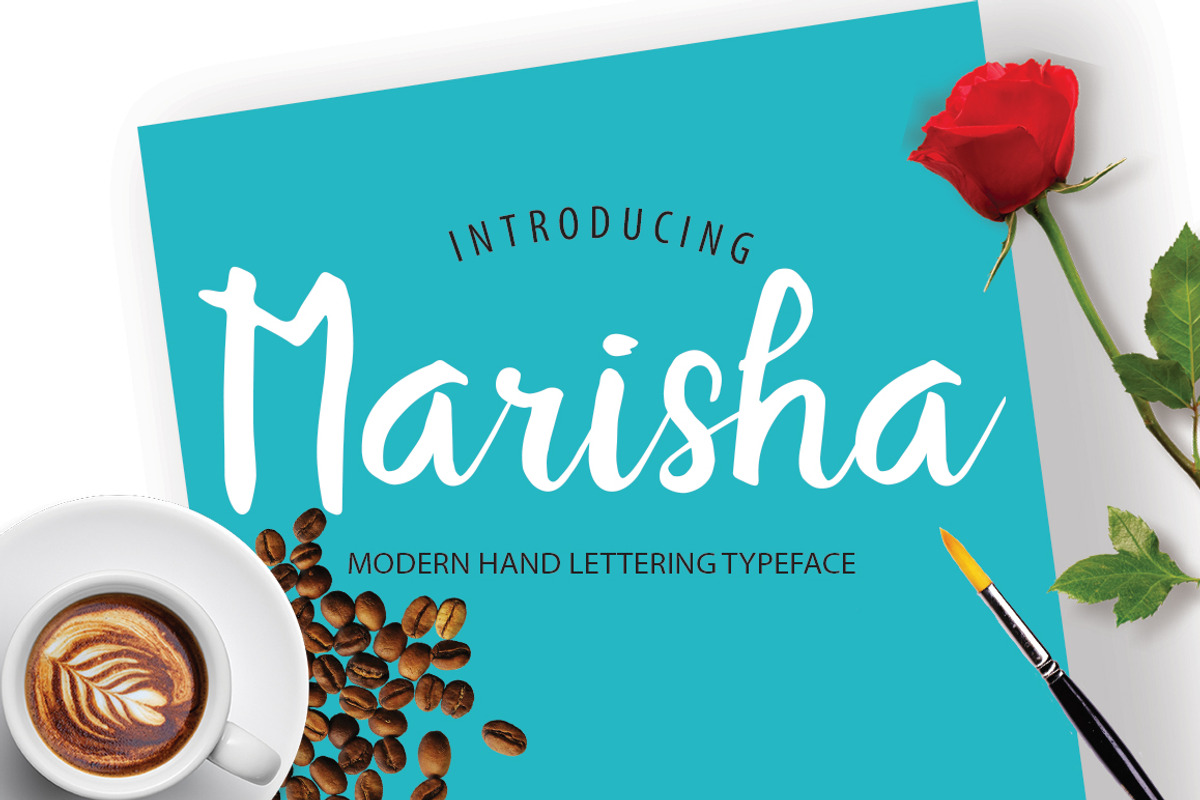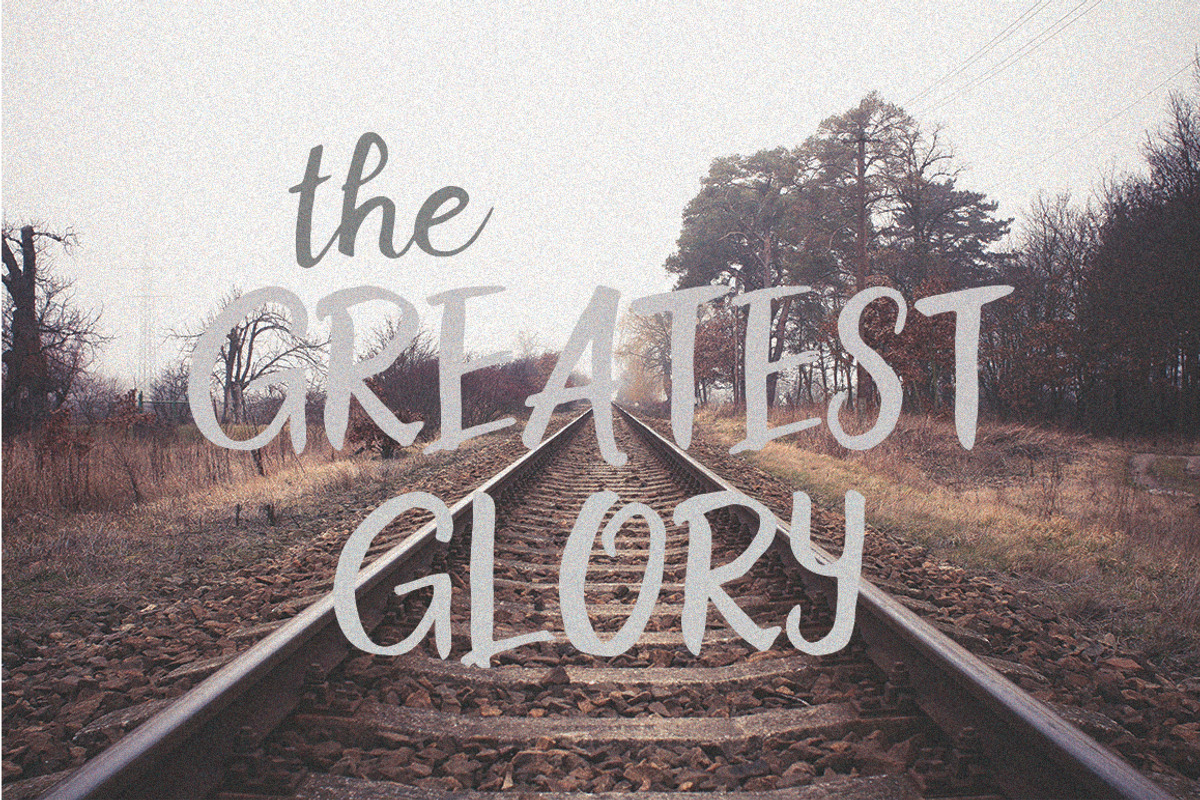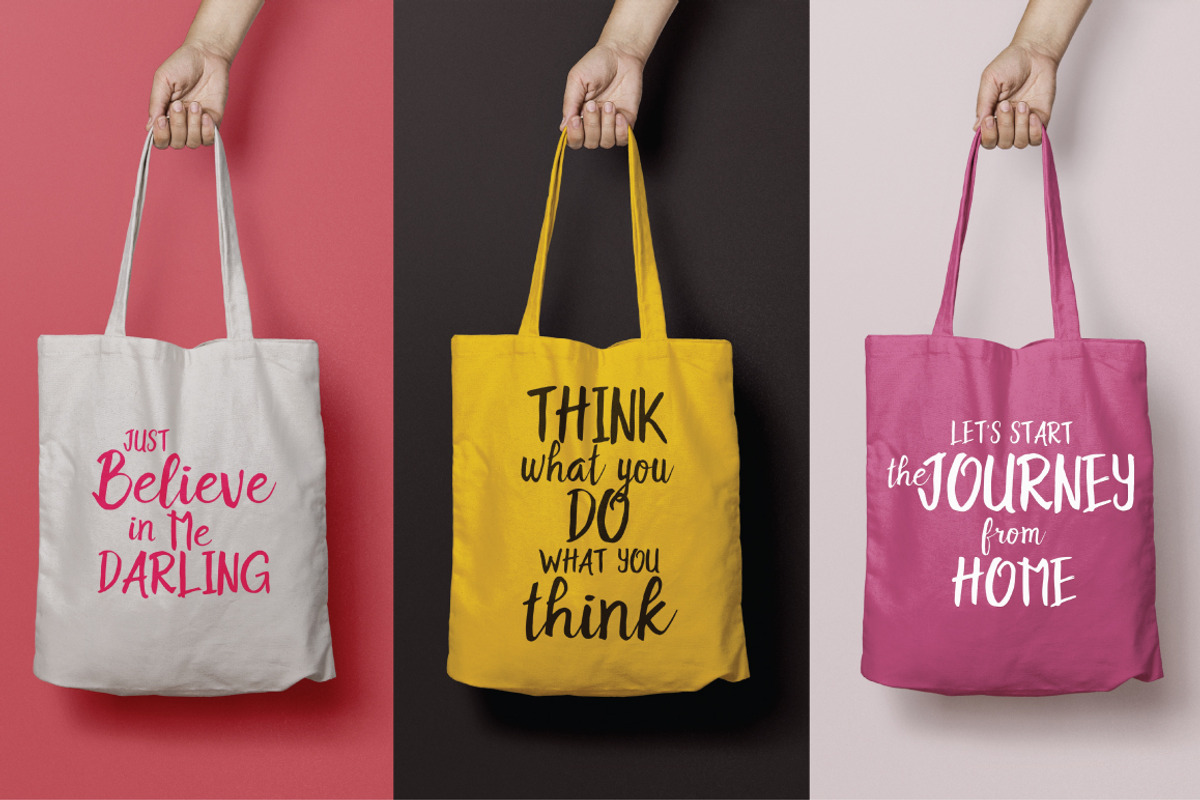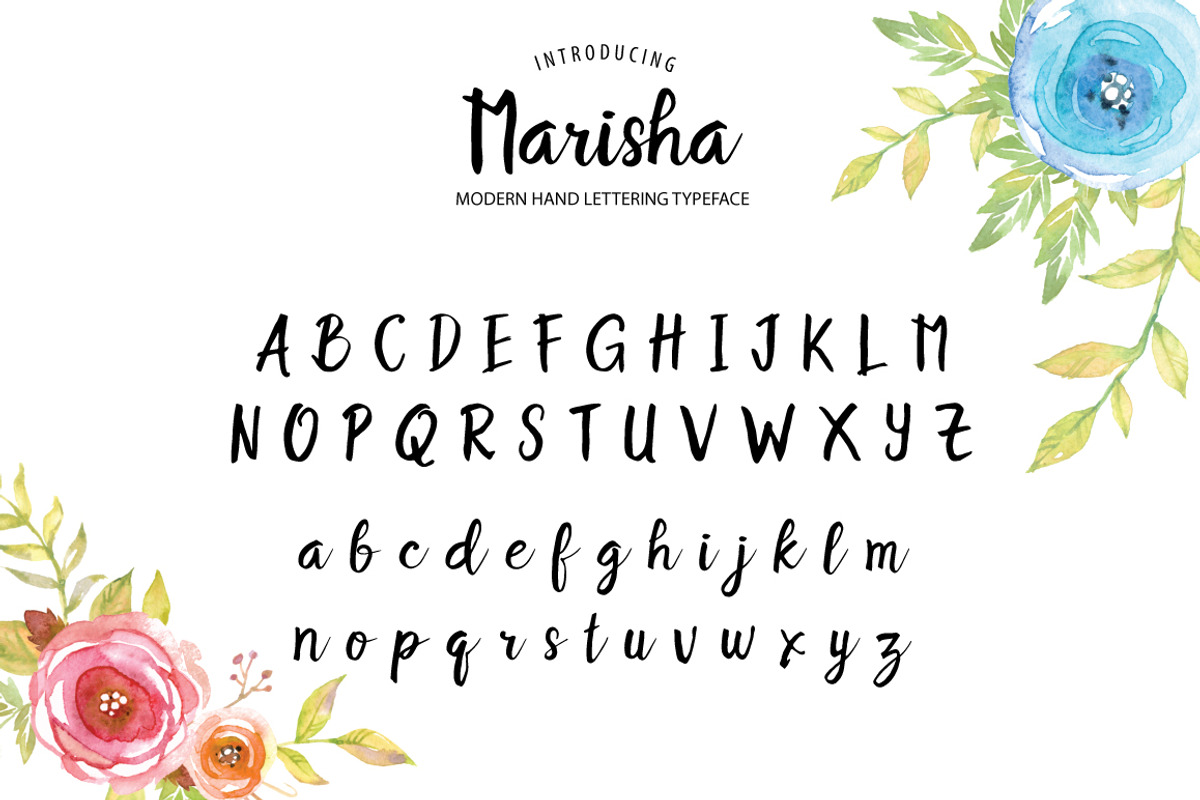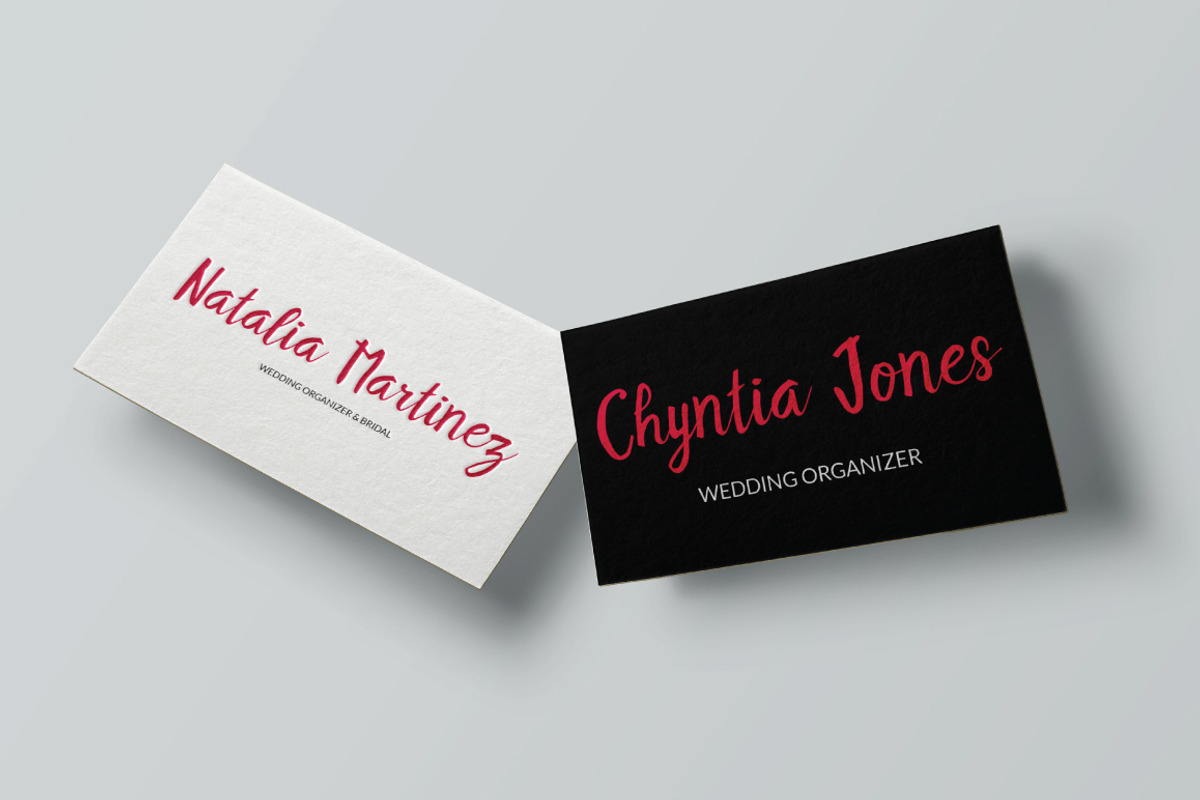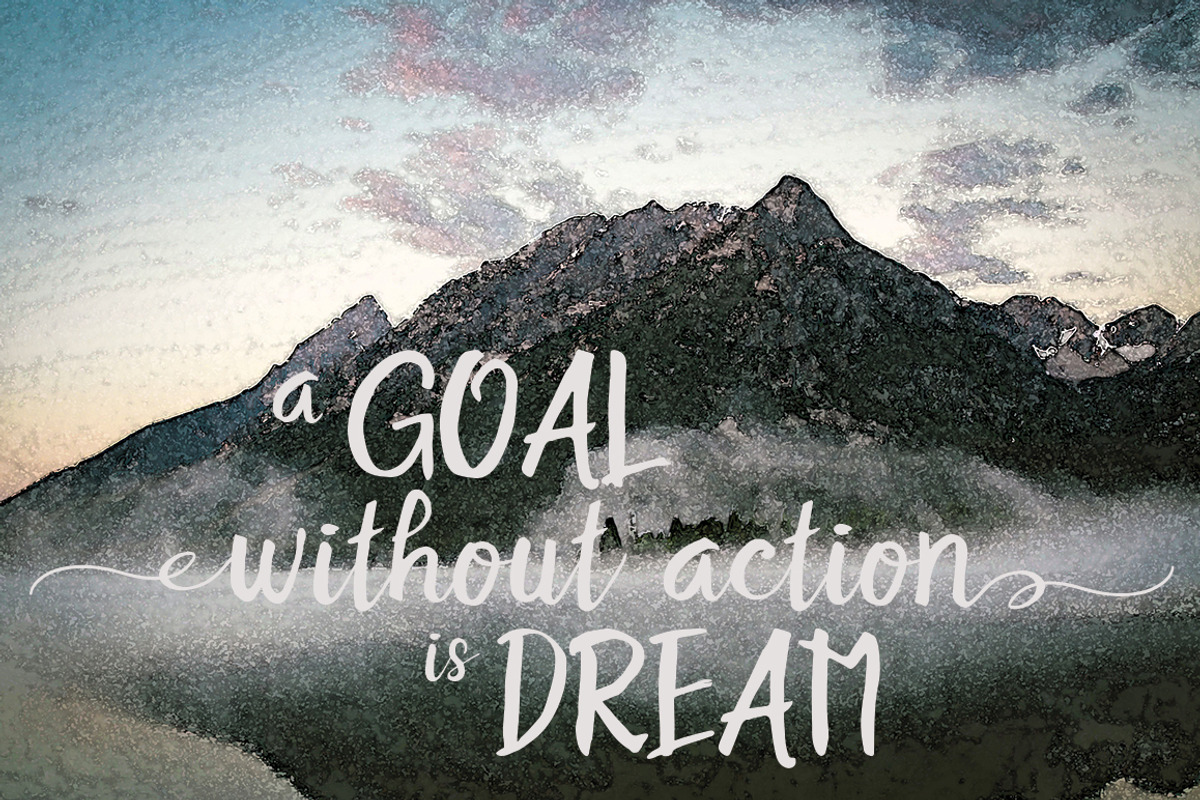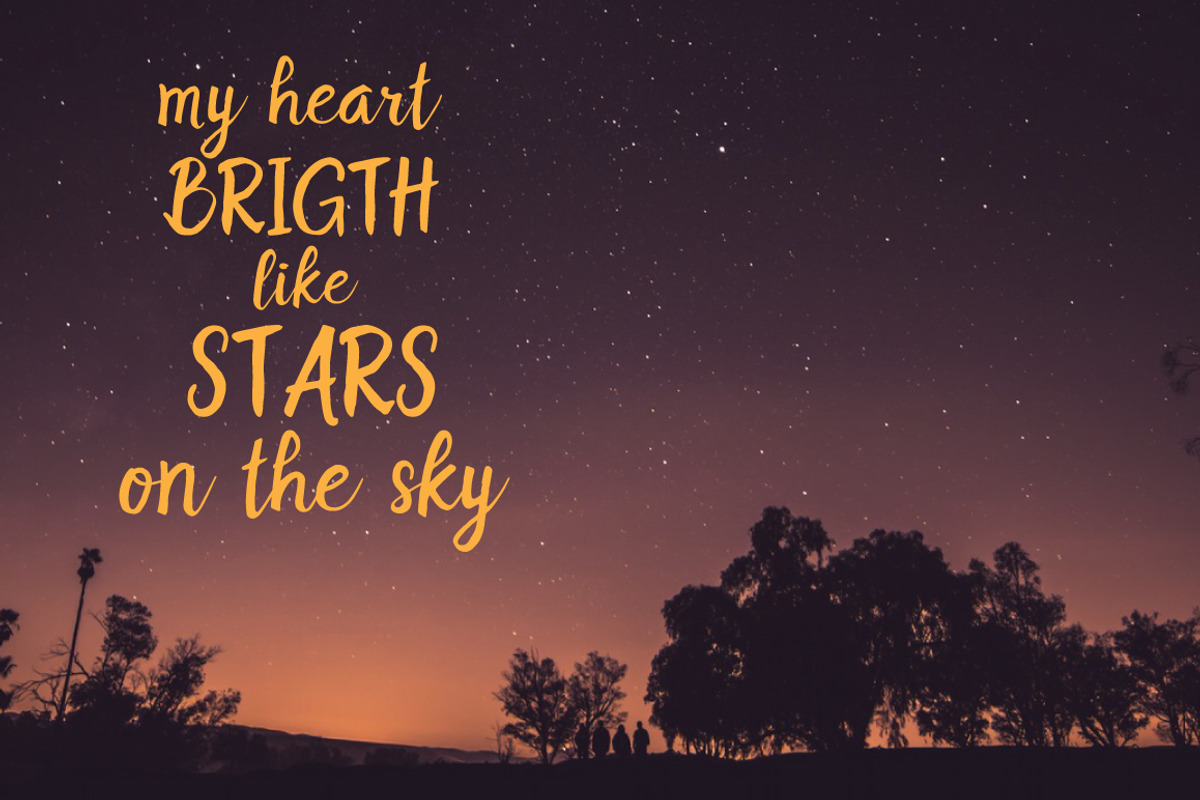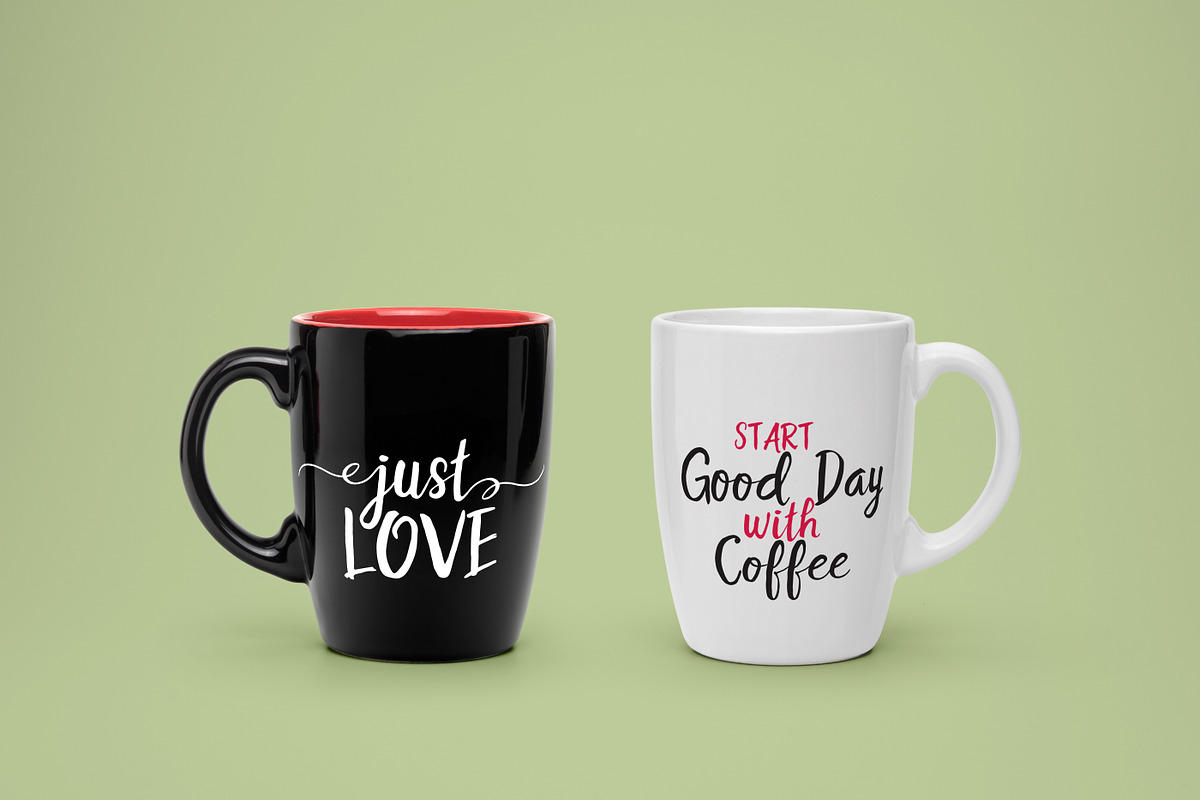
Marisha Script Font
Marisha Script Font by redbox.design is a font selected for branding, posters, packaging, typography.
Why Marisha Script Font is worth a look
Marisha Script Font by redbox.design fits naturally into Branding, posters, packaging, typography.